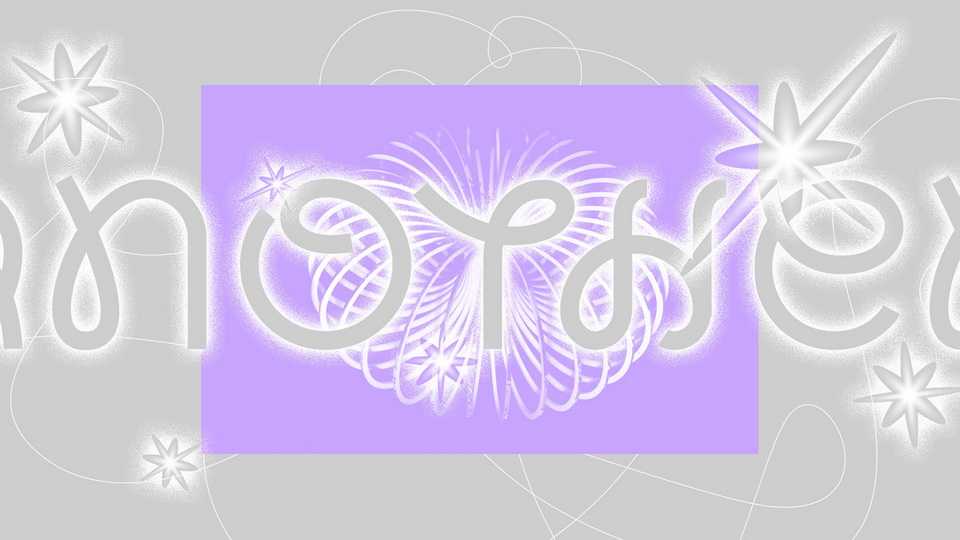
Download Slinkee font, a playful and bouncy typeface, made during an exploration of a completely different idea. Its design is meant to evoke the movement of the childhood favourite slinky toy, as it stretches out and closes back in.